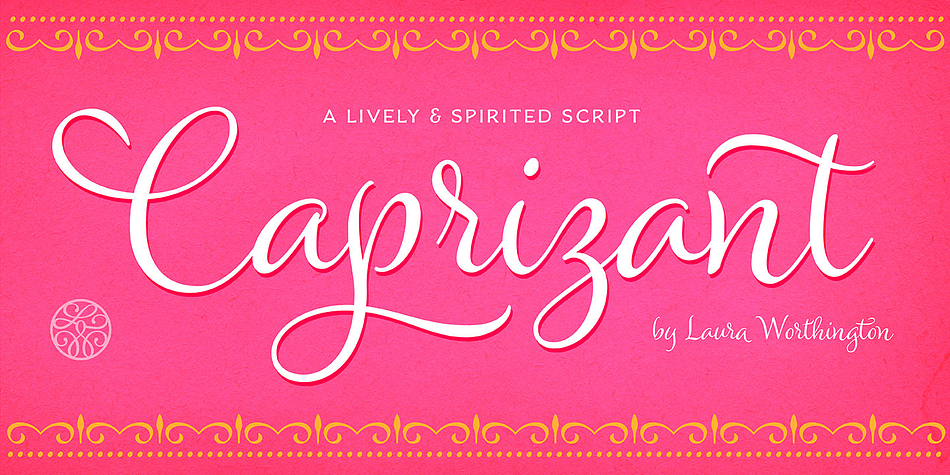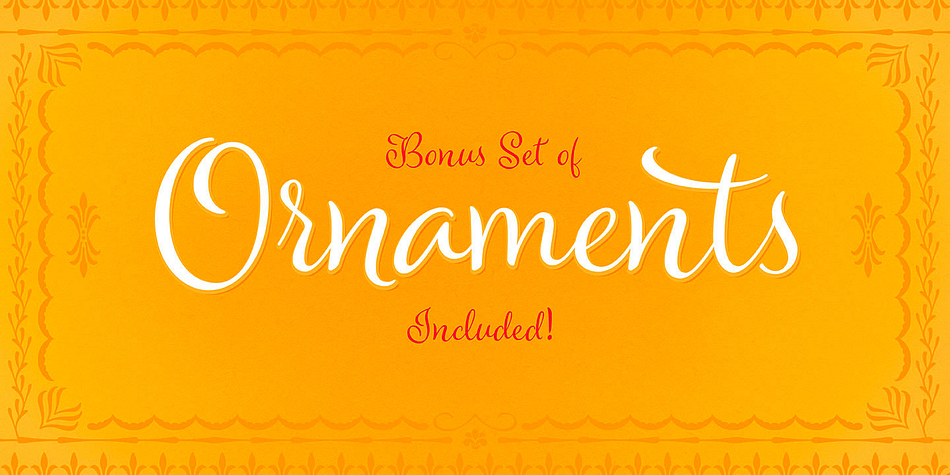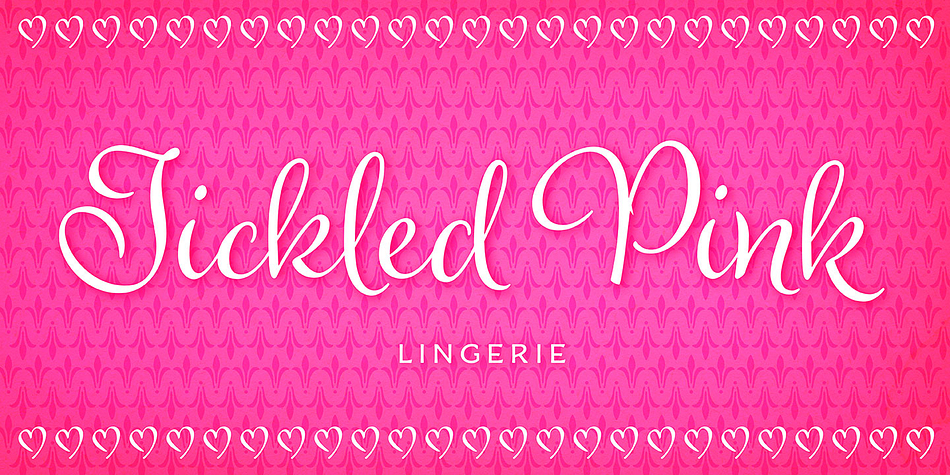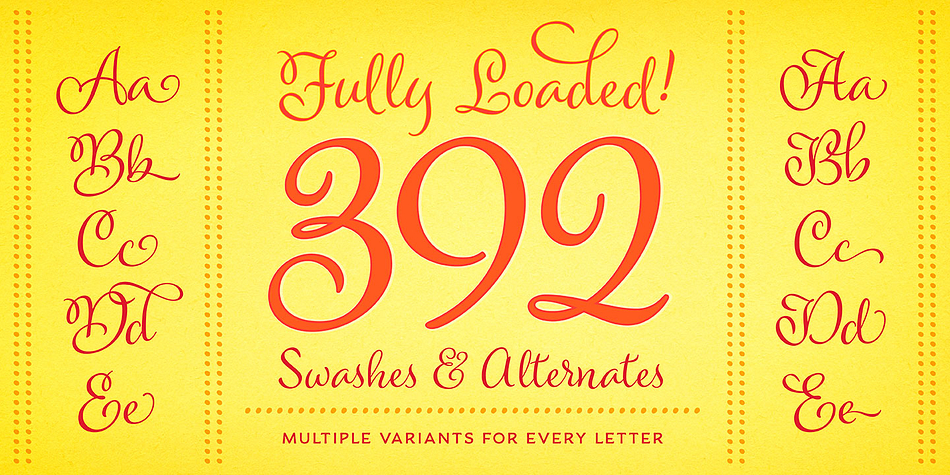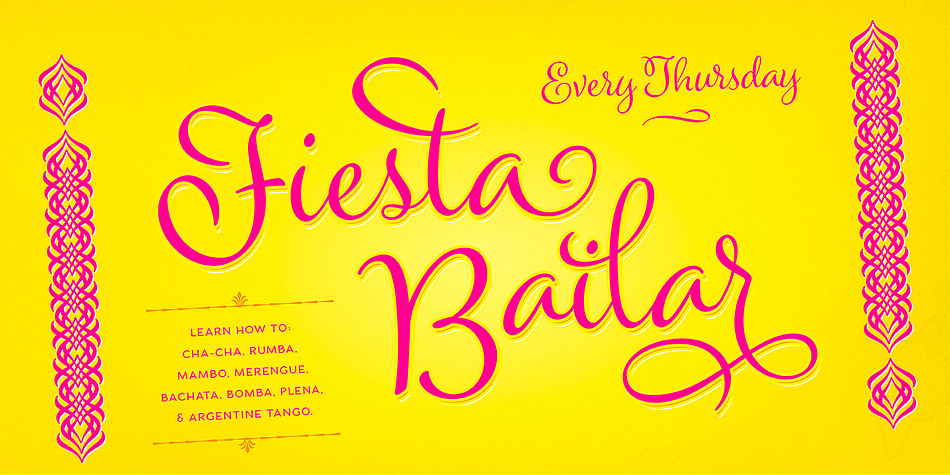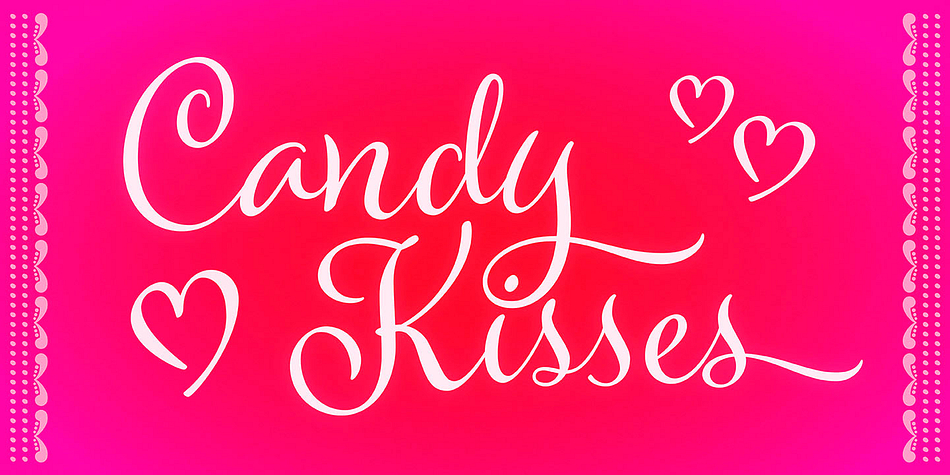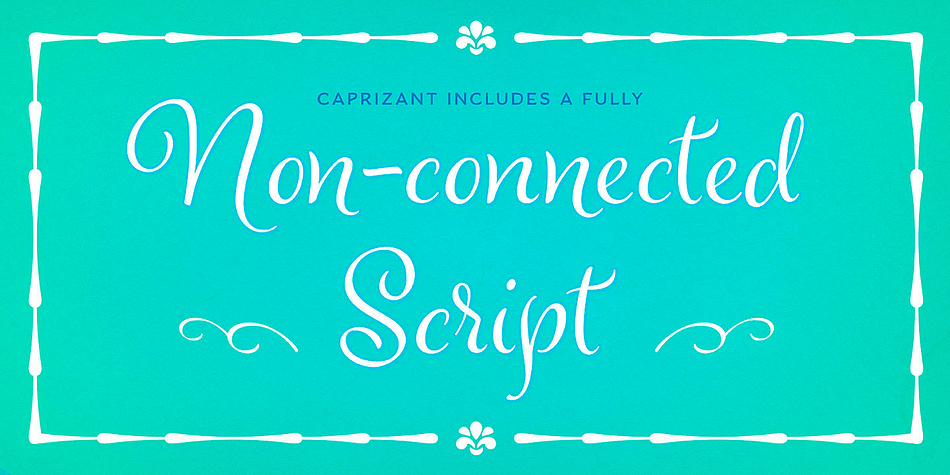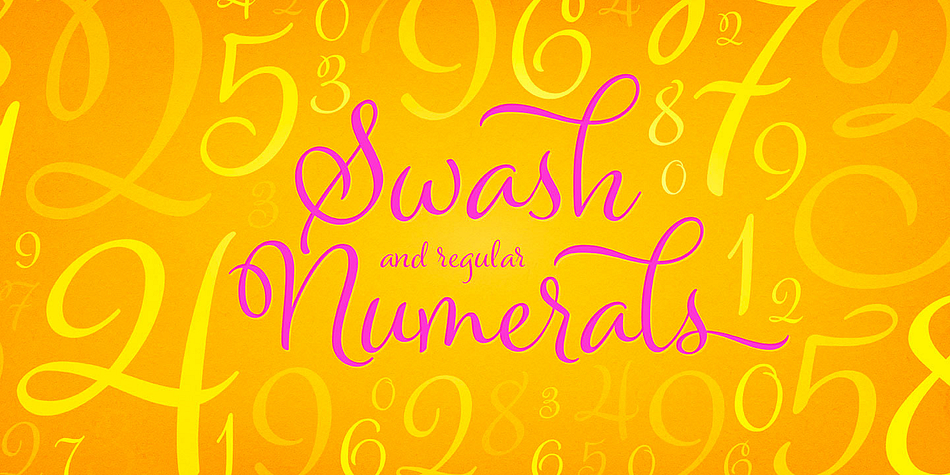
Caprizant is a script and modern calligraphy font family. This typeface has three styles and was published by Laura Worthington.
A lively upright script based on letters inked with a pointed pen. In its default setting, Caprizant is understated and readable enough to use at smaller sizes — in short blocks of body copy it can easily mimic beautiful handwriting. Alternates of every letter, plus dozens of ligatures, provide convincingly human variation.
For display settings, titles, and identity work, Caprizant shines with more energy and elegance. Dress it up with 392 swash characters, two sets of alternate capitals, and ornaments. It even includes a disconnected version, to strike a more casual tone.